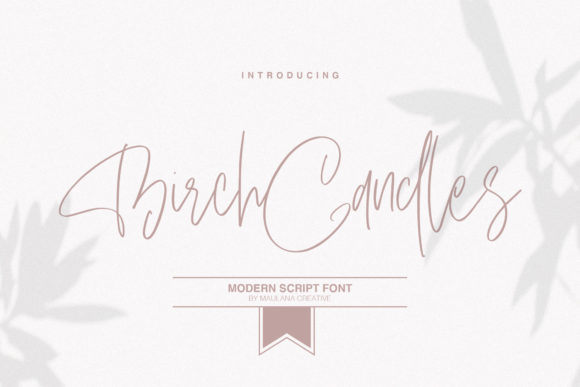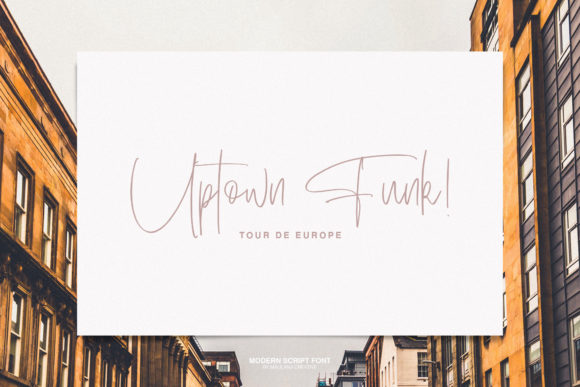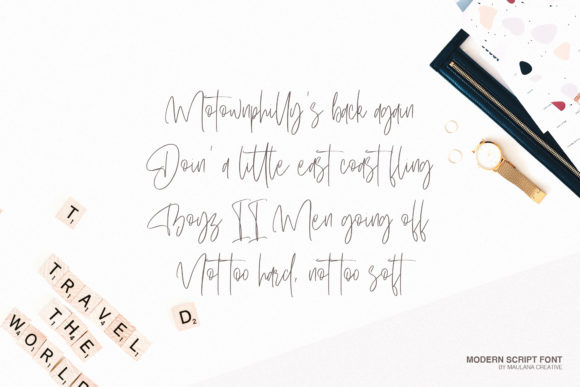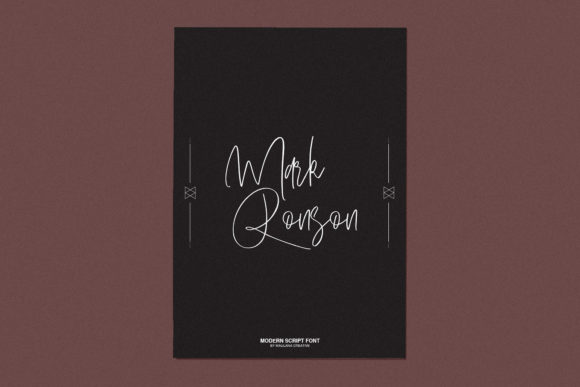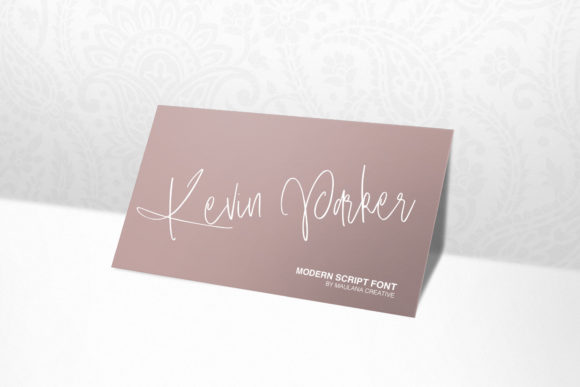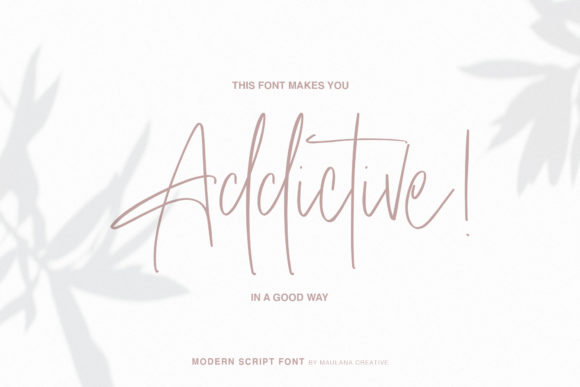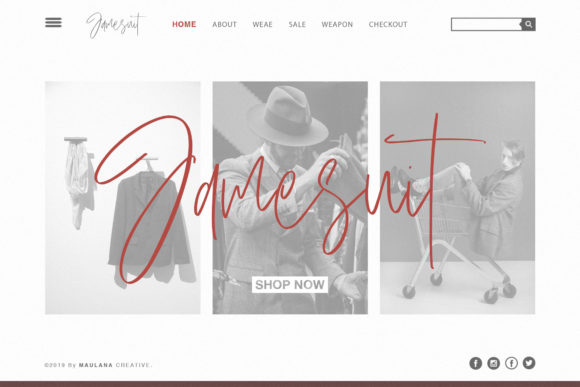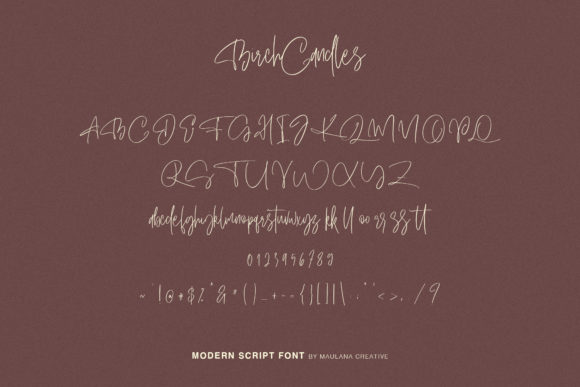
Birch Candles Font
About Birch Candles Font
With its spacious curves, Birch Candles is a true standout. Completed with heartfelt swashes, this original script yearns with nostalgia.